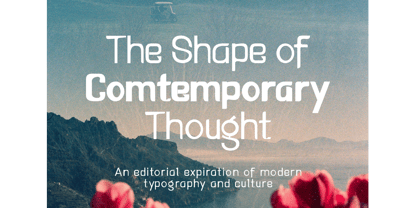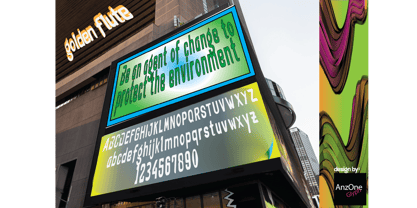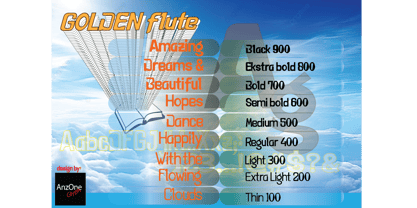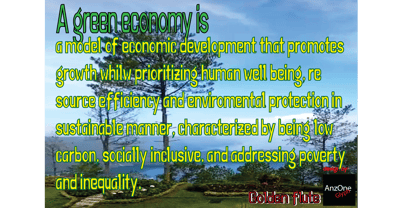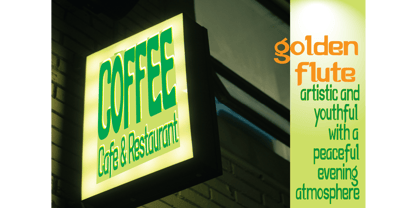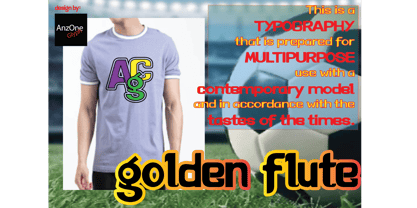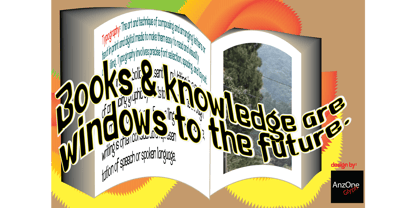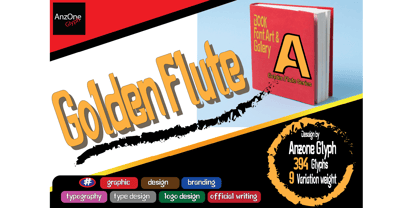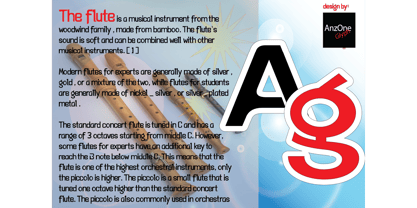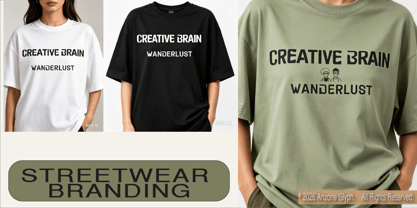
Golden Flute
The Golden Flute Font Family was designed by Irwansyah and published by Anzone glyph. Golden Flute contains 9 styles and family package options. More about this family
Golden Flute family font Bring a premium and bold feel to your design projects with Golden Flute. Designed by Anzone Glyph, the Golden Flute font is a strong and versatile display collection, perfect for creating instant visual impact. With 9 available weight variations, this font offers incredible flexibility for a variety of branding and editorial design needs. Ideal For: Branding & Logo Design: Creating a strong and memorable brand identity. Typography: Expressive and artistic typographic designs. Official Writing: Also suitable for formal documents or publications that require character. Graphic Design: Posters, book covers and other marketing materials. Golden Flute is designed to stand out. Add it to your cart now and start creating amazing designs!
Anzone glyph focuses on the sale and development of digital letter designs with unique, expressive, and artistic characters by presenting letter designs that combine artistic creativity and modern writing techniques with a touch of contemporary style. Each font we present is designed to be youthful, dynamic, and free from restrictive constraints. We believe that letters are not simply symbols for writing words, but also a medium of visual expression capable of conveying emotion, identity, and character in every design. Anzone glyph's fonts are highly versatile in their application. Our letter designs are suitable for a wide range of creative needs, from official document writing and book and magazine cover design to trademarks, logos, visual identities, and other graphic design projects. With unique shapes and a balance between aesthetics and readability, each of our creations aims to add value to designers, businesses, and creators who want to stand out and stand out. In addition to selling font designs, Anzone glyph is also committed to providing the best customer experience across various digital marketplaces. We continuously innovate by offering a variety of font styles from modern sans serifs and classic serifs to expressive artistic fonts to meet the needs of today's diverse design styles. Through Anzone glyph, we aim to inspire people to see that letters are not just a means of communication, but rather works of art that come to life in every detail of their lines. Embracing the spirit of freedom of expression. Each Anzone glyph letter carries a message be creative, dare to be different, and write your story in a unique style.